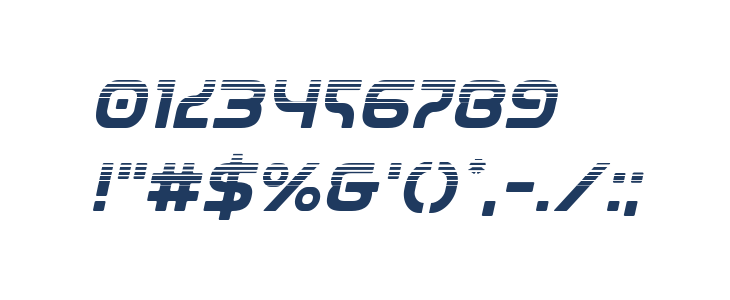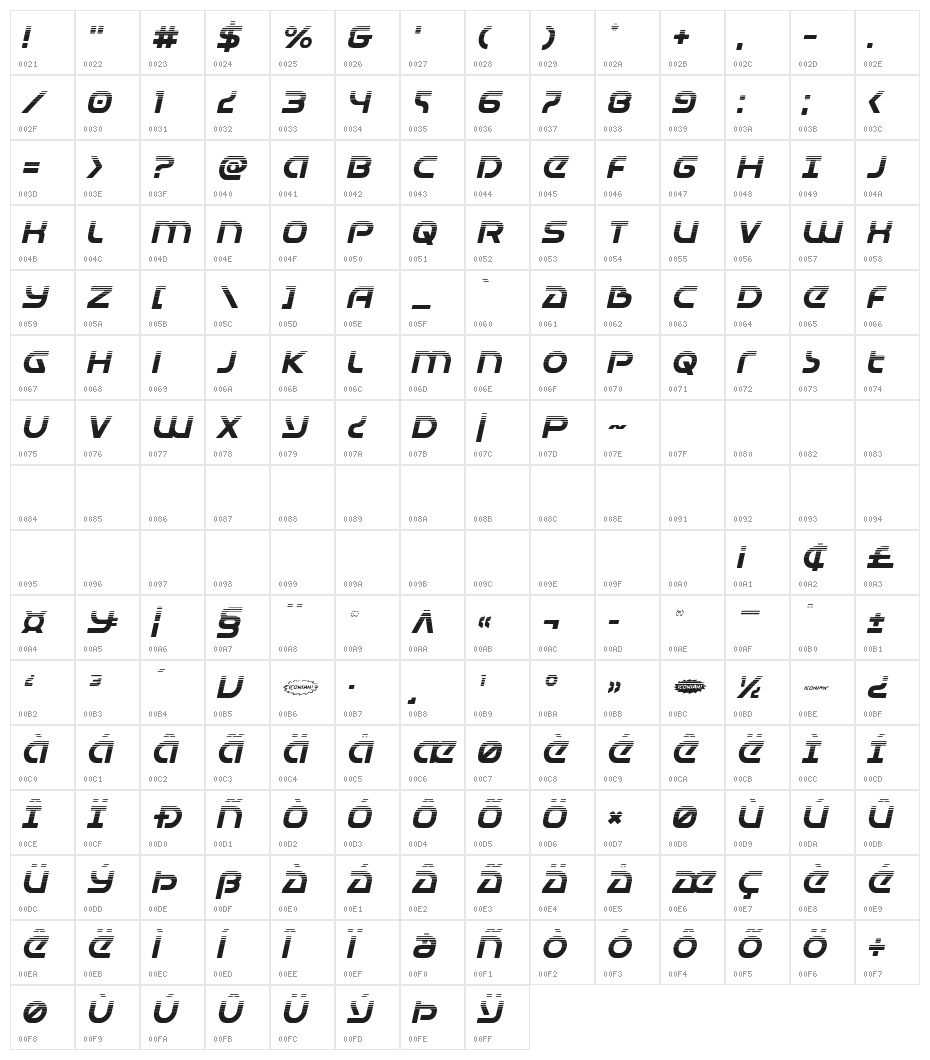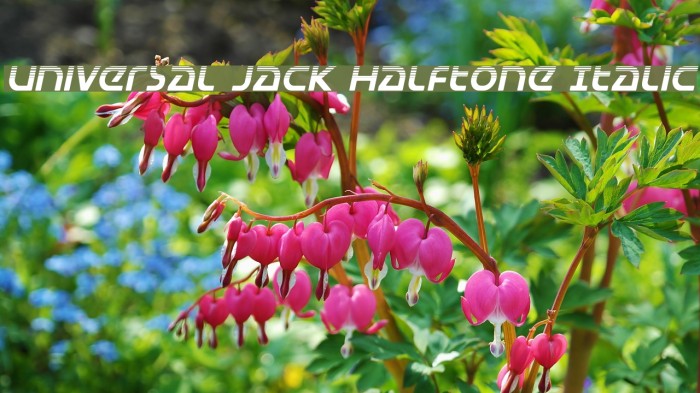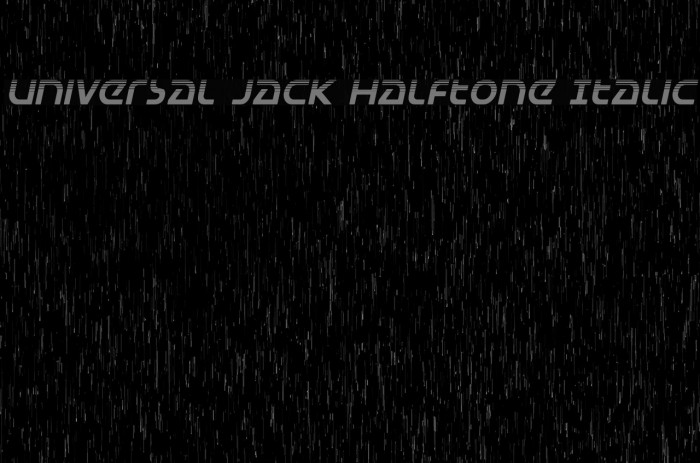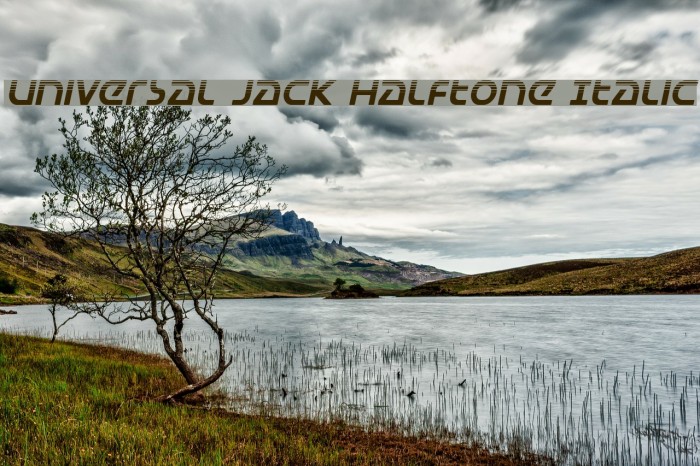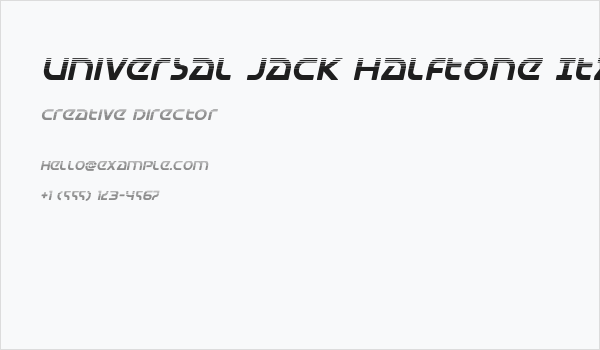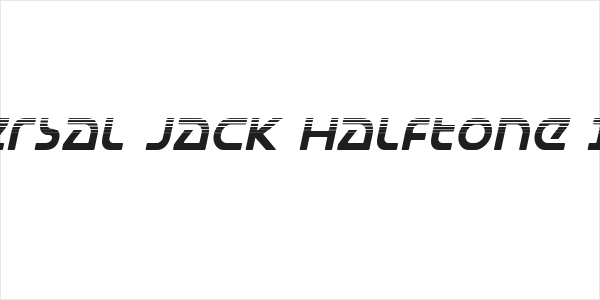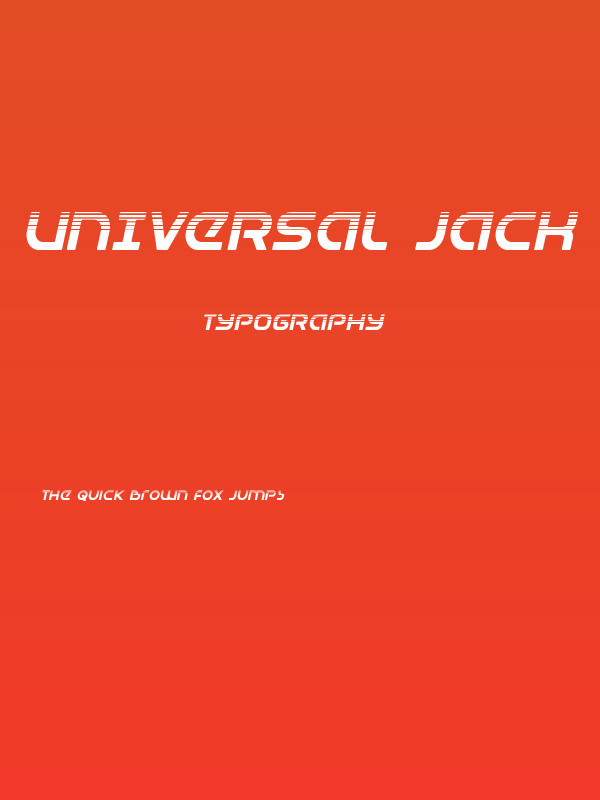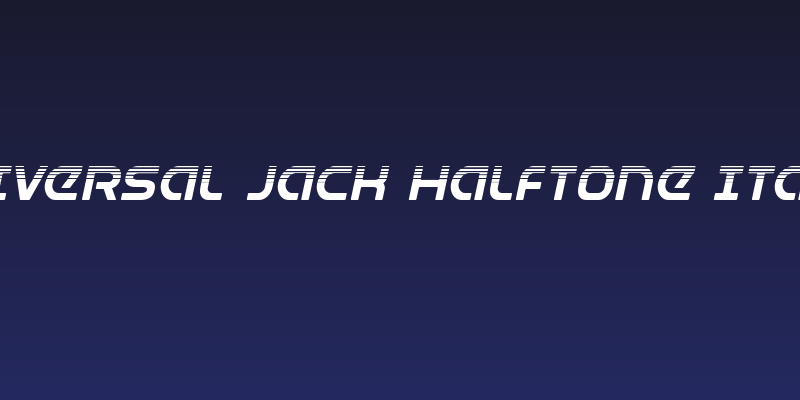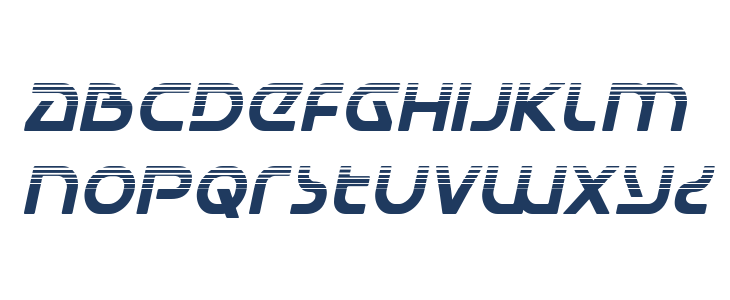
Universal Jack Halftone Italic Font
Universal Jack Halftone Italic Description
This font features a dynamic, futuristic design with a halftone effect that gives it a sense of movement and energy. The characters are italicized, adding to the forward-leaning, progressive feel. The strokes are bold and consistent, with a unique striped pattern that creates a visually striking appearance. The font maintains a modern aesthetic, suitable for projects that require a cutting-edge, tech-savvy look. Its distinctive style makes it ideal for attention-grabbing headlines or branding that aims to stand out.
| Proposed Projects | Ideal for technology branding, futuristic posters, video game titles, and sci-fi themed designs. |